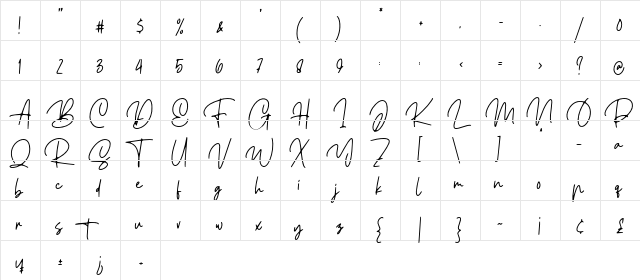
Ellouise Regular
| Foundry | Garisman Studio |
| Designer | Risman Ginarwan |
Design Context for Ellouise Typeface
Ellouise is a composed and adaptable typeface that performs quietly and consistently across a wide range of design contexts.